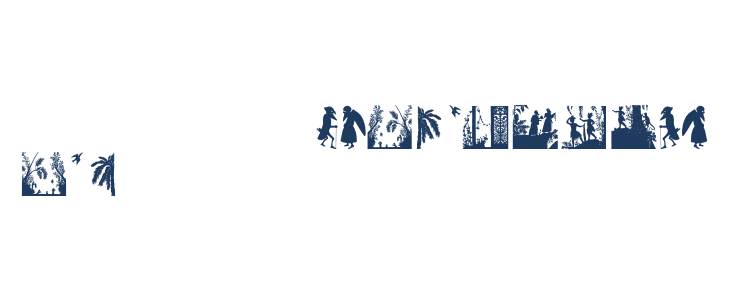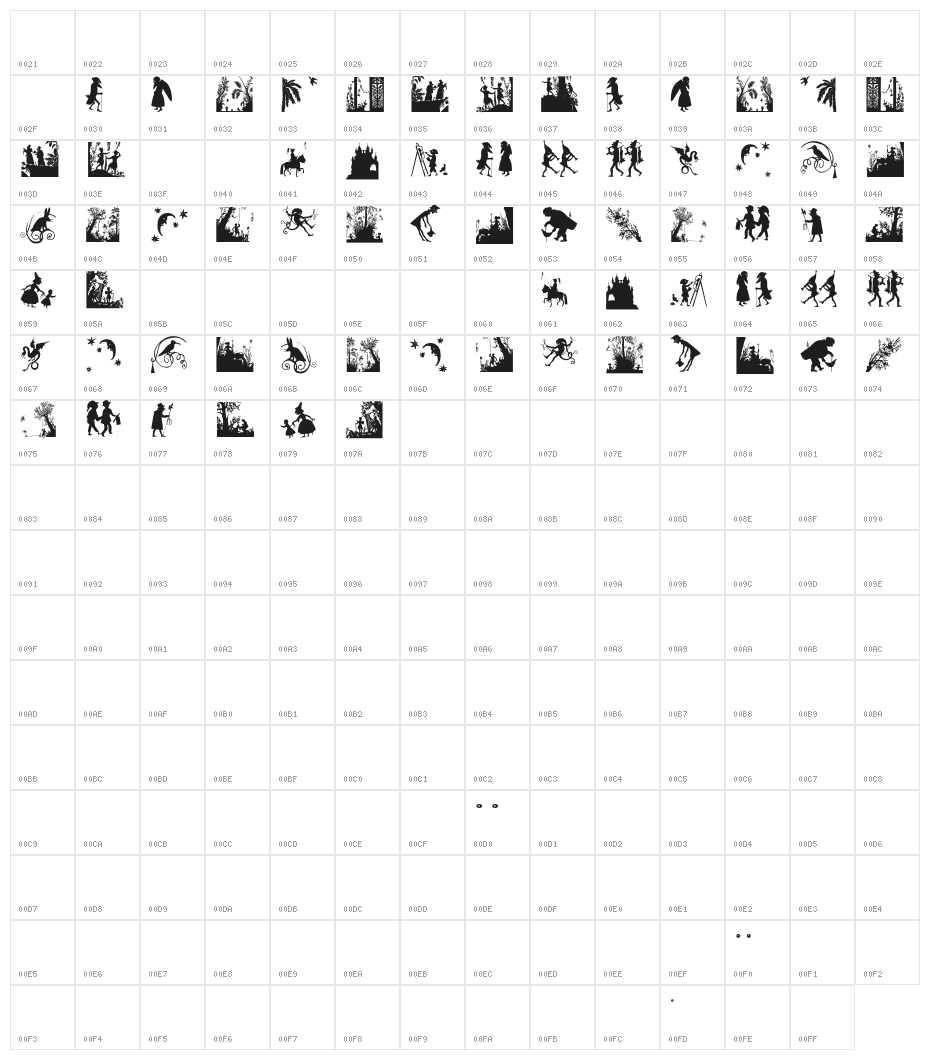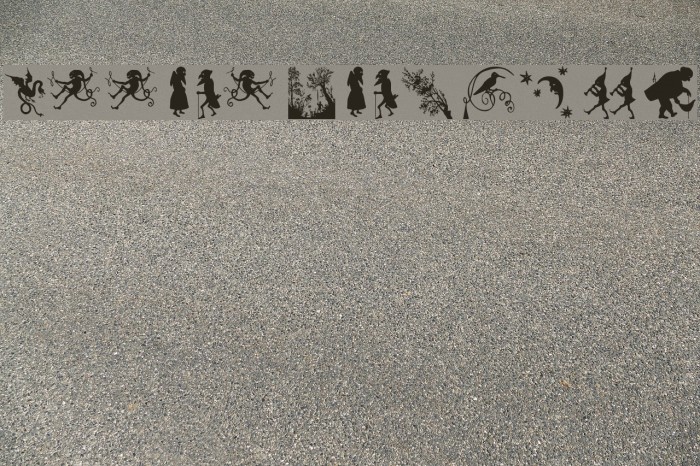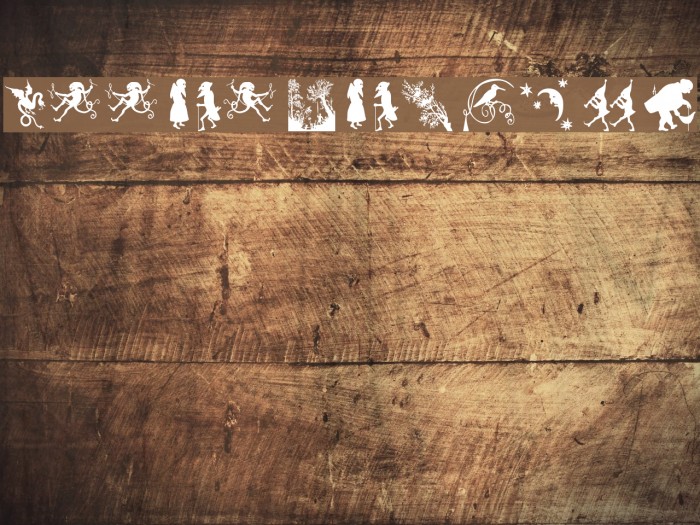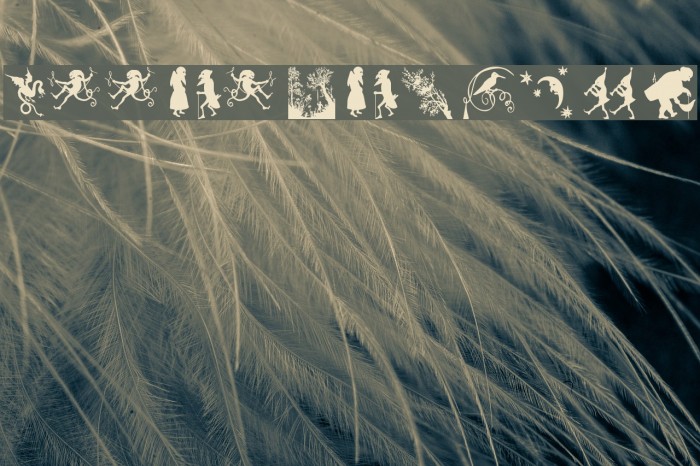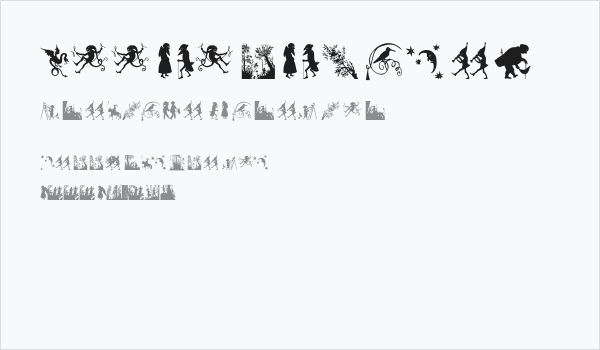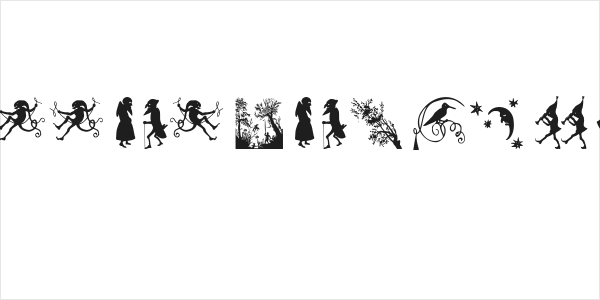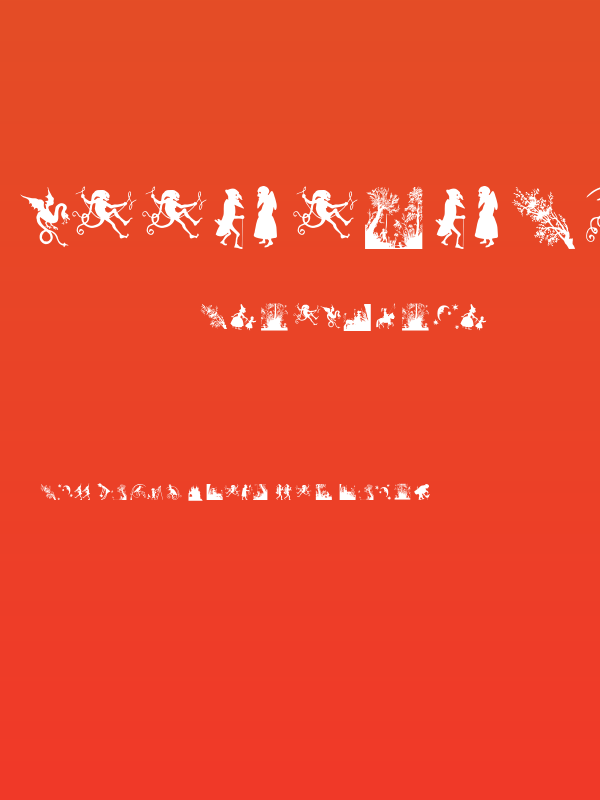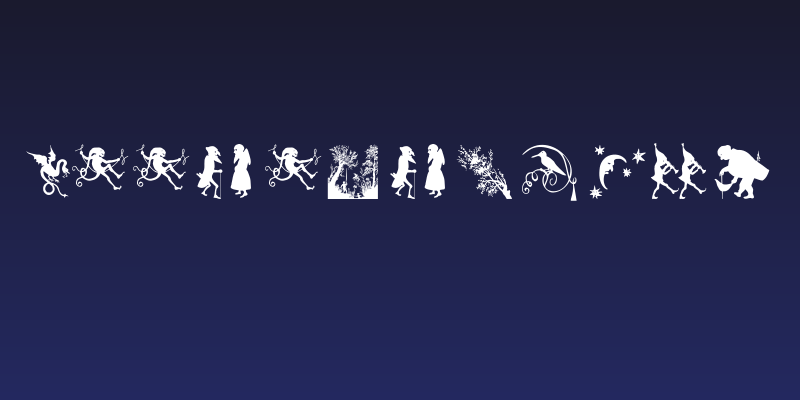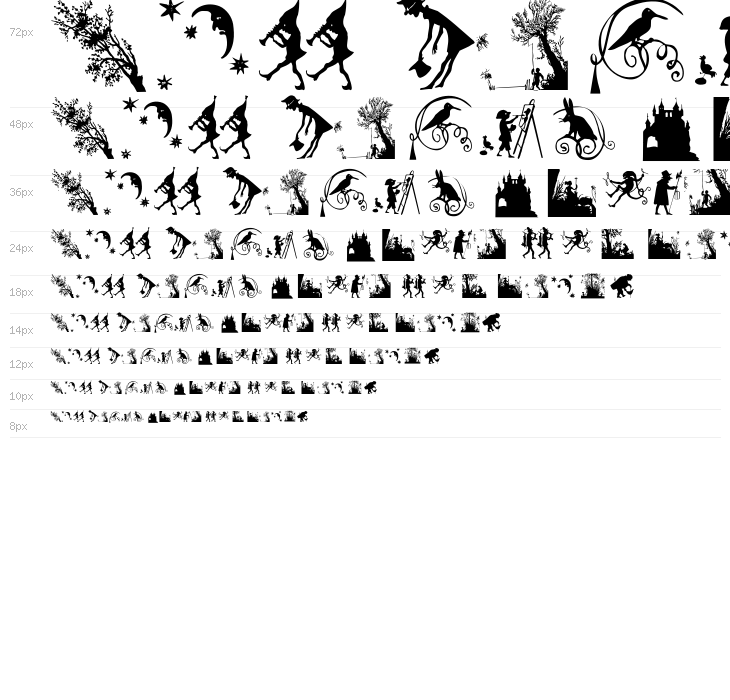
GoodOldTimes Font
GoodOldTimes Description
This decorative font features whimsical silhouettes that evoke a sense of nostalgia and storytelling. Each character is represented by a unique scene, including children playing, animals, and nature elements, all depicted in a charming, illustrative style. The intricate details and playful compositions make it ideal for projects that require a touch of fantasy and imagination. The font's design is reminiscent of vintage storybook illustrations, capturing the essence of childhood wonder and adventure. Its artistic nature makes it stand out, offering a unique visual experience.
| Overall Style | Vintage |
| Use Case | Decorative elements, Illustrative projects |
| Proposed Projects | Ideal for children's books, fantasy-themed invitations, greeting cards, and decorative posters. |